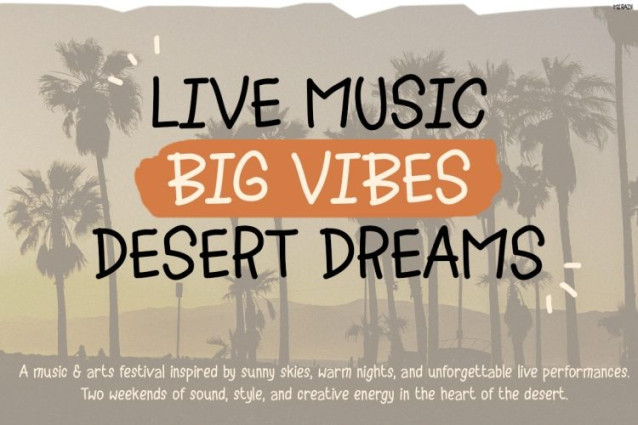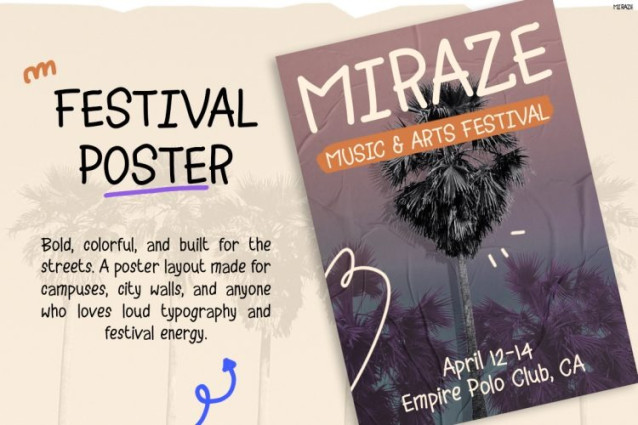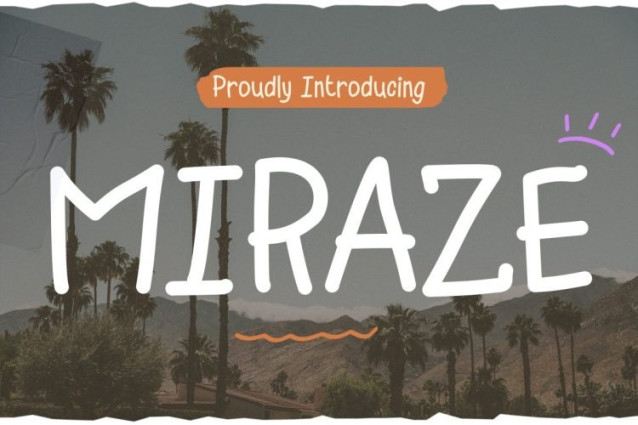
Miraze Font
Miraze Font is a bold handwritten display font inspired by music festivals, desert adventures, creative freedom, and youthful expression. Designed with energetic strokes and naturally imperfect lettering, this font instantly creates a lively and unforgettable visual impact. Moreover, Miraze blends playful handwritten aesthetics with modern festival-style typography, making every design feel dynamic, artistic, and full of personality. Unlike ordinary handwritten fonts, Miraze delivers a raw and authentic vibe that feels both expressive and highly versatile. As a result, this font works perfectly for projects that need bold attention-grabbing typography with relaxed creative energy. In addition, the casual handwritten style gives designs a warm human touch while still maintaining strong readability across different layouts. Therefore, Miraze becomes the perfect choice for visuals that want to feel free, trendy, and emotionally engaging.
Why Kids Font Miraze Stands Out
Kids Font Miraze combines modern festival aesthetics with playful handwritten charm. Furthermore, the expressive letterforms help headlines look energetic, stylish, and visually memorable. Thanks to its relaxed brush-inspired appearance, this font creates a fun and adventurous atmosphere that instantly attracts attention. At the same time, the clean structure keeps the typography readable for both digital and print projects. Besides that, Miraze includes uppercase, lowercase, numbers, and punctuation, so designers can build flexible and eye-catching typography compositions effortlessly. Consequently, this font works beautifully for music posters, event branding, social media content, packaging, and creative campaigns.
Kids Font Miraze is ideal for graphic designers, event organizers, musicians, festival brands, content creators, creative agencies, and lifestyle businesses that want typography filled with energy and personality.